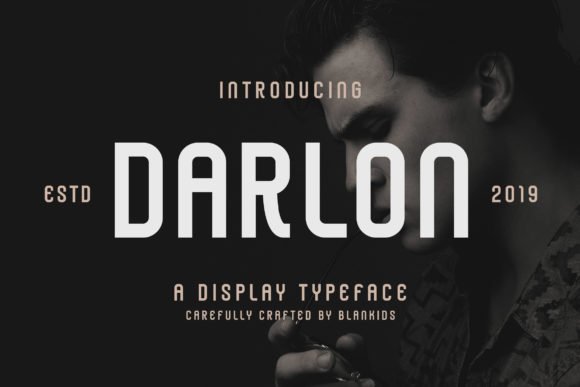
The Birth of a Design Icon: Introducing the Darlon Font
You know that feeling when you’re working on a project and everything just clicks into place? You’re experimenting with different fonts, colors, and layouts, and suddenly, your design idea starts to take shape. It’s that moment when you know you’ve created something special. For designers, this feeling is what drives us to push the boundaries of creativity and innovation. And that’s exactly what the Darlon Font is designed to help you achieve.
The Darlon Font is an ultra-modern sans serif font that exudes coolness and sophistication. Its clean lines, geometric shapes, and subtle nuances make it the perfect choice for turning any design idea into a true standout. Whether you’re working on a branding project, a website, or a social media campaign, the Darlon Font is sure to elevate your design to new heights.
Darlon Font Key Features
- Font Family: Darlon is a sans-serif font family.
- Size: Darlon font family includes 6 font weights, ranging from Thin (100) to Extra Bold (800).
- Unique Characteristics: Darlon’s clean and modern design makes it suitable for digital interfaces, signage, and advertising.
Darlon Font Review
I recently had the chance to work with the Darlon Font, and I must say it’s a mixed bag. Let’s start with the good stuff.
- ✨ Unique character set: Darlon Font has some really interesting and unique characters that can add a touch of personality to your designs.
- ✨ Versatile: This font is suitable for both digital and print projects, making it a great option for designers who work on a variety of mediums.
- ✨ Easy to read: Despite its quirky feel, Darlon Font is surprisingly easy to read, making it a great choice for body text.
Now, let’s talk about the not-so-good stuff.
- ⚠️ Limited font sizes: Darlon Font looks best at larger sizes, but it can get a bit messy when used at smaller sizes.
- ⚠️ Not ideal for headlines: While it’s great for body text, Darlon Font isn’t the best choice for headlines, as it can be hard to read at smaller sizes.
- ⚠️ Not web-friendly: Unfortunately, Darlon Font isn’t optimized for web use, which can lead to issues with font rendering and loading times.
Overall, I’d say Darlon Font is a great addition to any designer’s toolkit, but it’s not without its limitations. With a little creativity and planning, it can be a great choice for the right project.
Tips for Getting the Most Out of Darlon Font
For the best results, use Darlon Font for titles, headings, and body text where you want to create a sense of elegance and sophistication.
Experiment with different font sizes and styles to achieve the desired visual impact.
Darlon Font is ideal for:
- Editorial and publishing designs
- Formal event invitations and announcements
Alternatives to Darlon Font for Designers
Fontin is a serif font with a strong, classic feel. It is best used for body text in publications and websites where a formal tone is desired. Fontin is similar to Darlon Font in its serif style, but it has a more elegant and refined appearance, making it suitable for longer blocks of text.
Comparison to Darlon Font: While Darlon Font has a more playful feel, Fontin is more serious and traditional. Fontin is a better choice for formal documents and publications, while Darlon Font is more suitable for creative projects.
Aldoine
Aldoine is a serif font with a vintage feel. It is best used for titles and headings in designs where a sense of nostalgia is desired. Aldoine has a similar feel to Darlon Font, but it is more ornate and decorative, making it suitable for projects that require a touch of elegance.
Comparison to Darlon Font: While both fonts have a classic feel, Aldoine is more ornate and decorative, making it a better choice for projects that require a touch of sophistication. Darlon Font is more versatile and can be used for a wide range of projects.
Merriweather is a serif font with a classic feel. It is best used for body text in publications and websites where a traditional tone is desired. Merriweather is similar to Darlon Font in its serif style, but it has a more formal and elegant appearance, making it suitable for longer blocks of text.